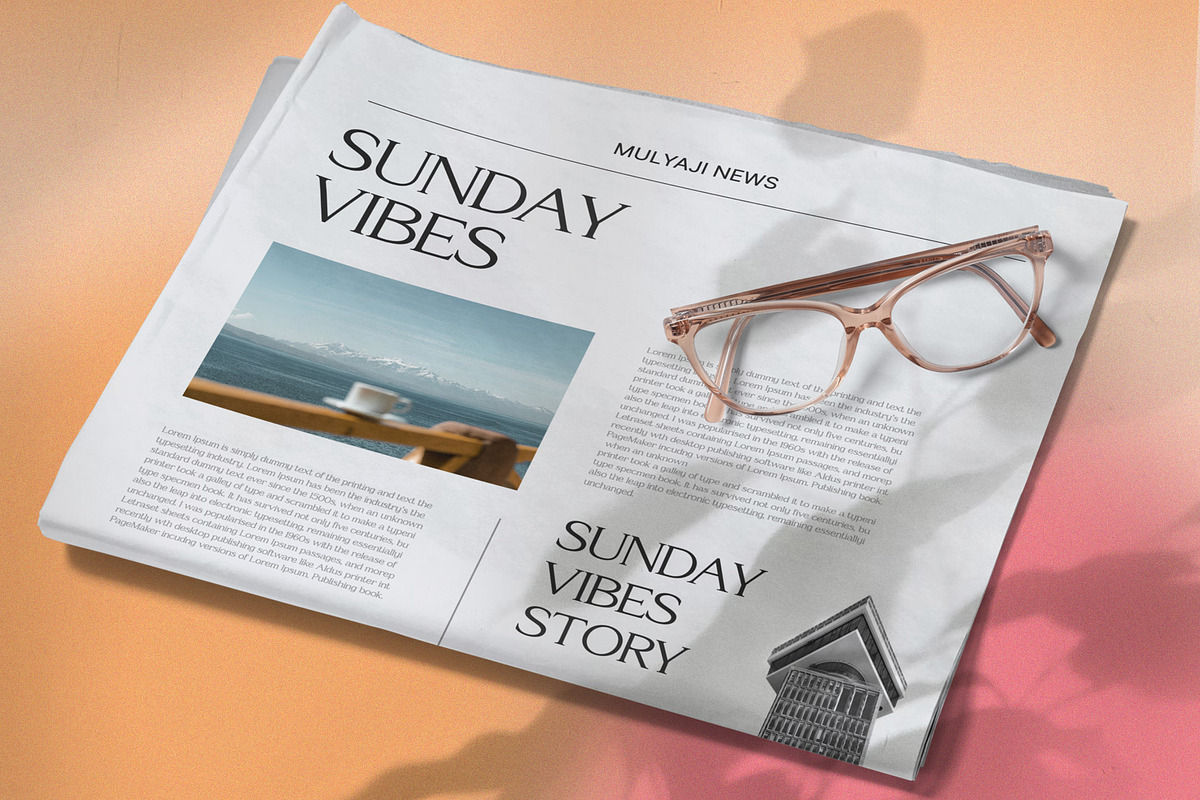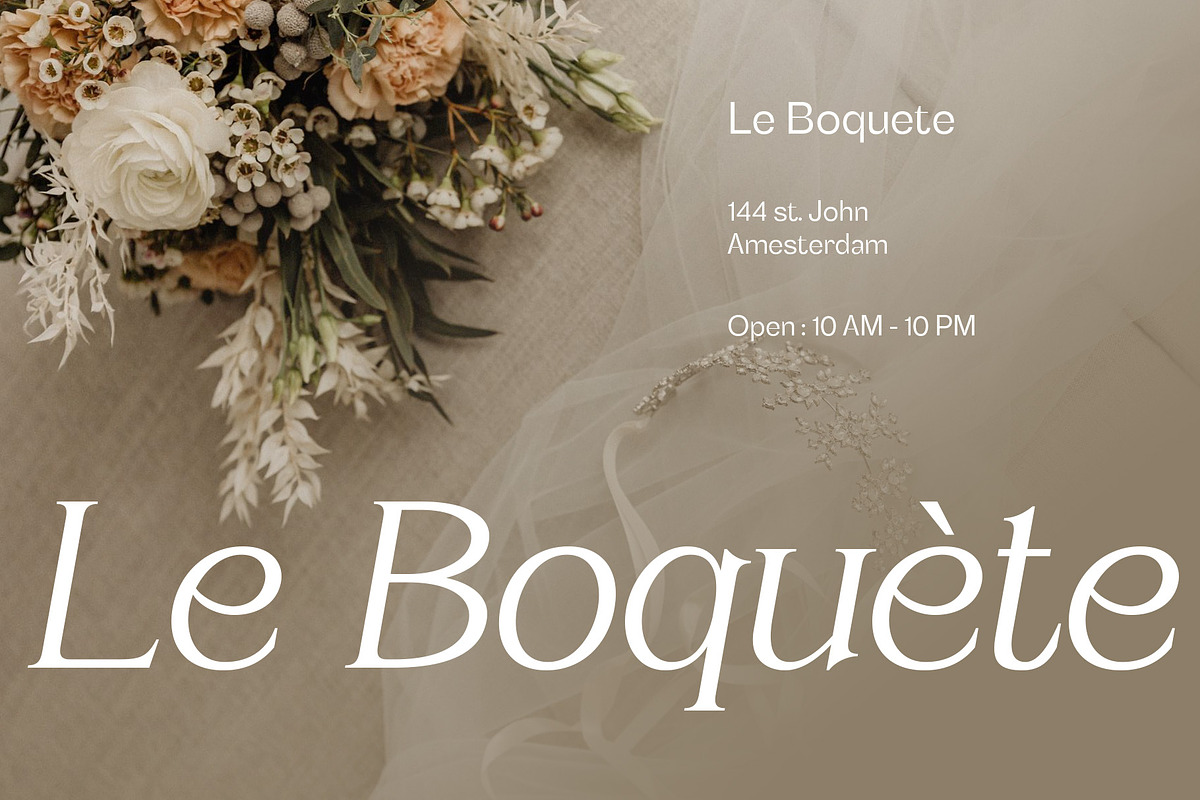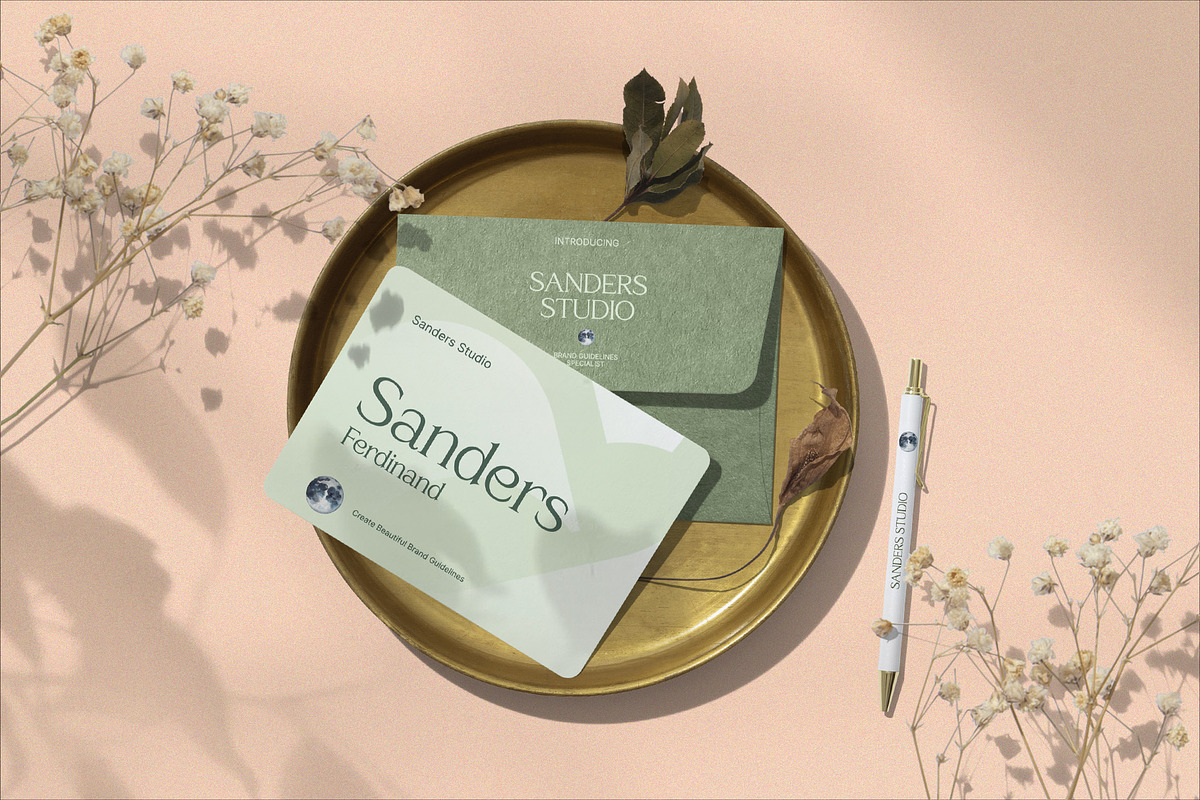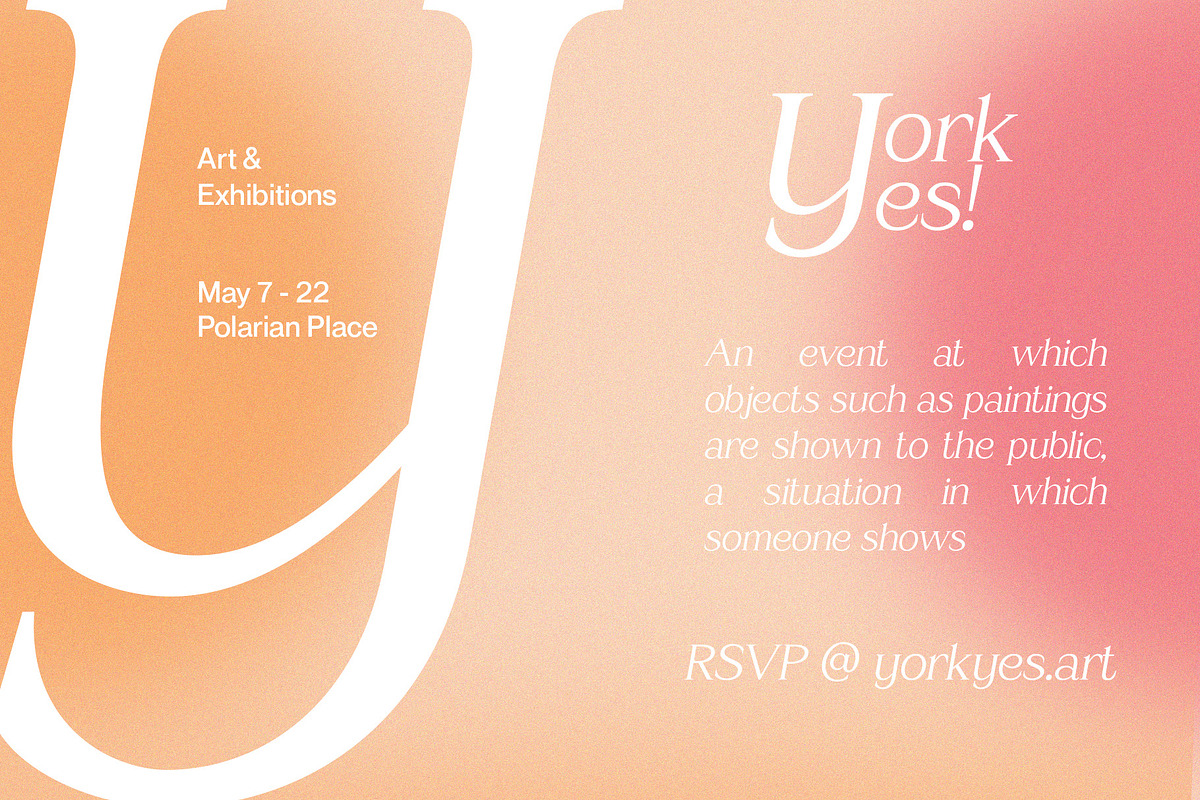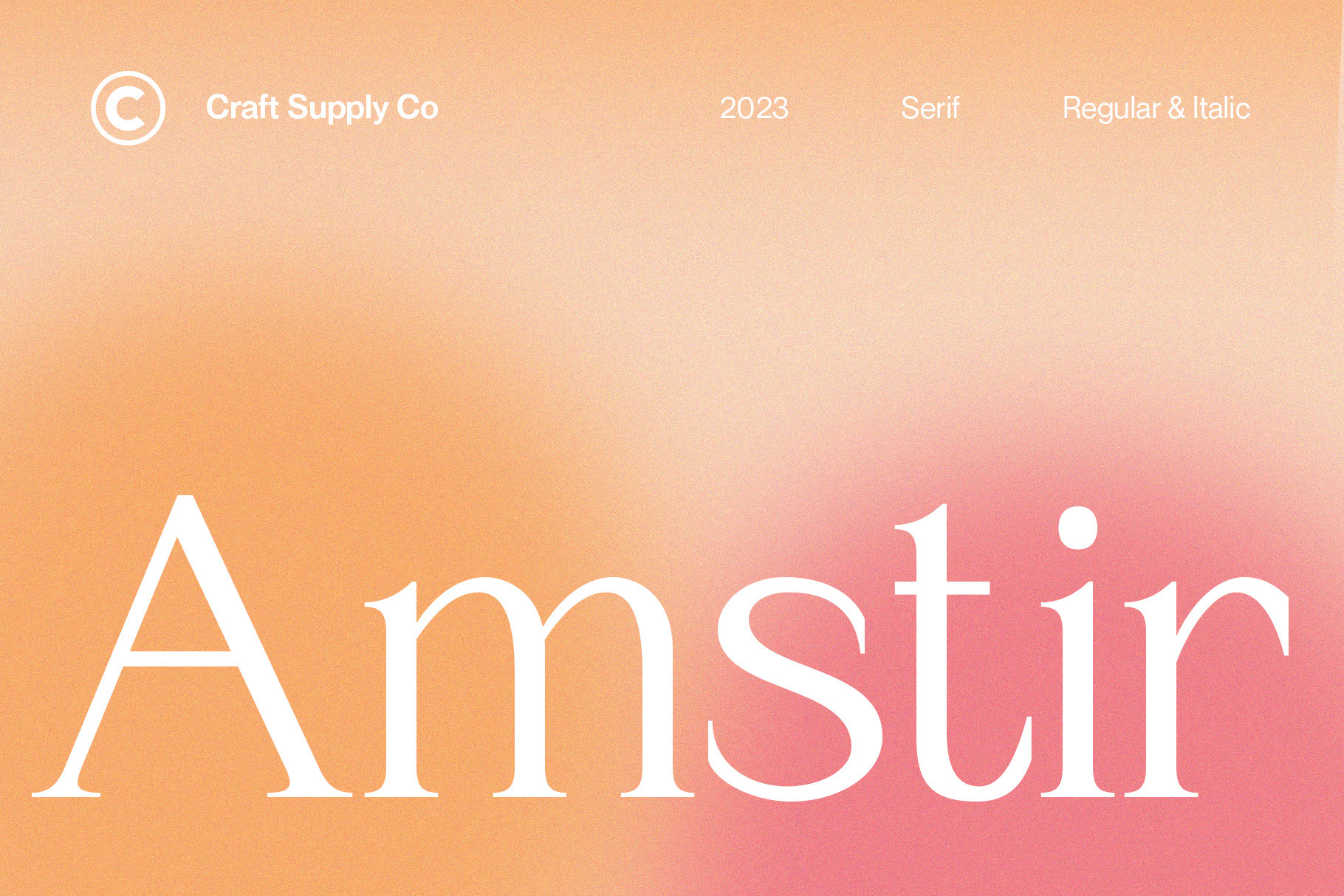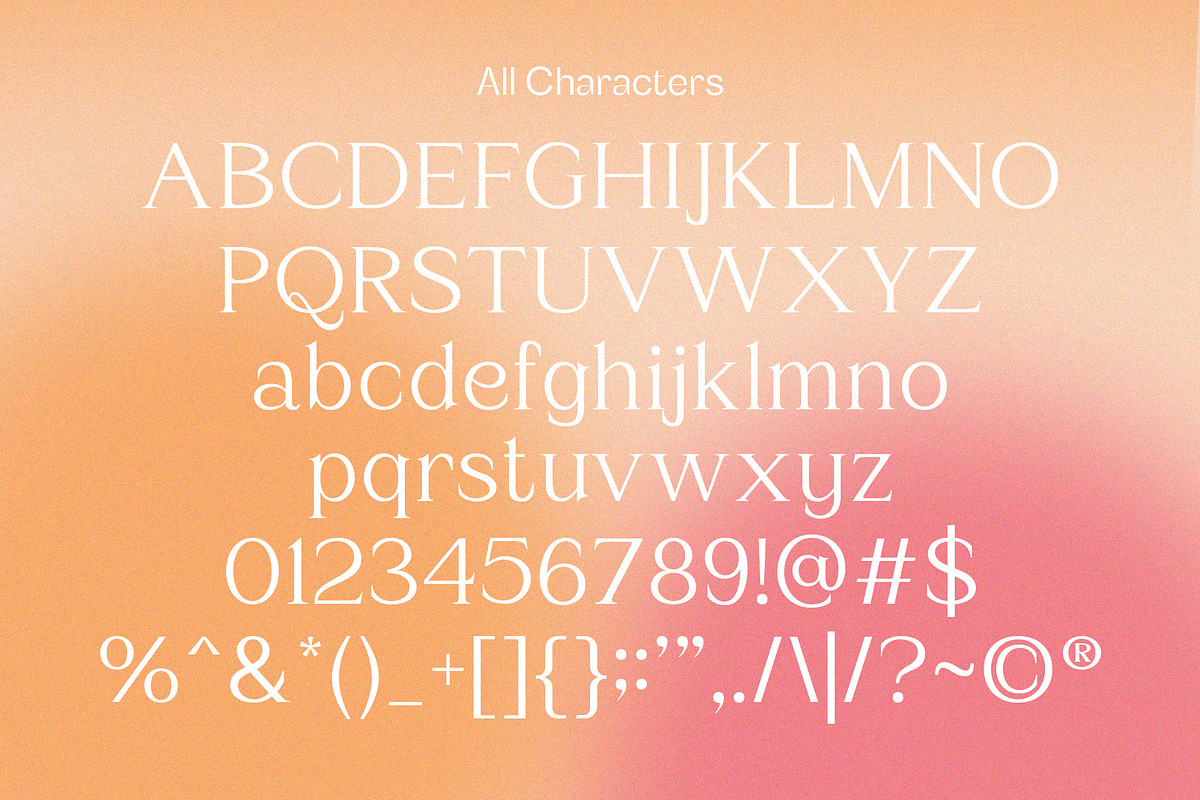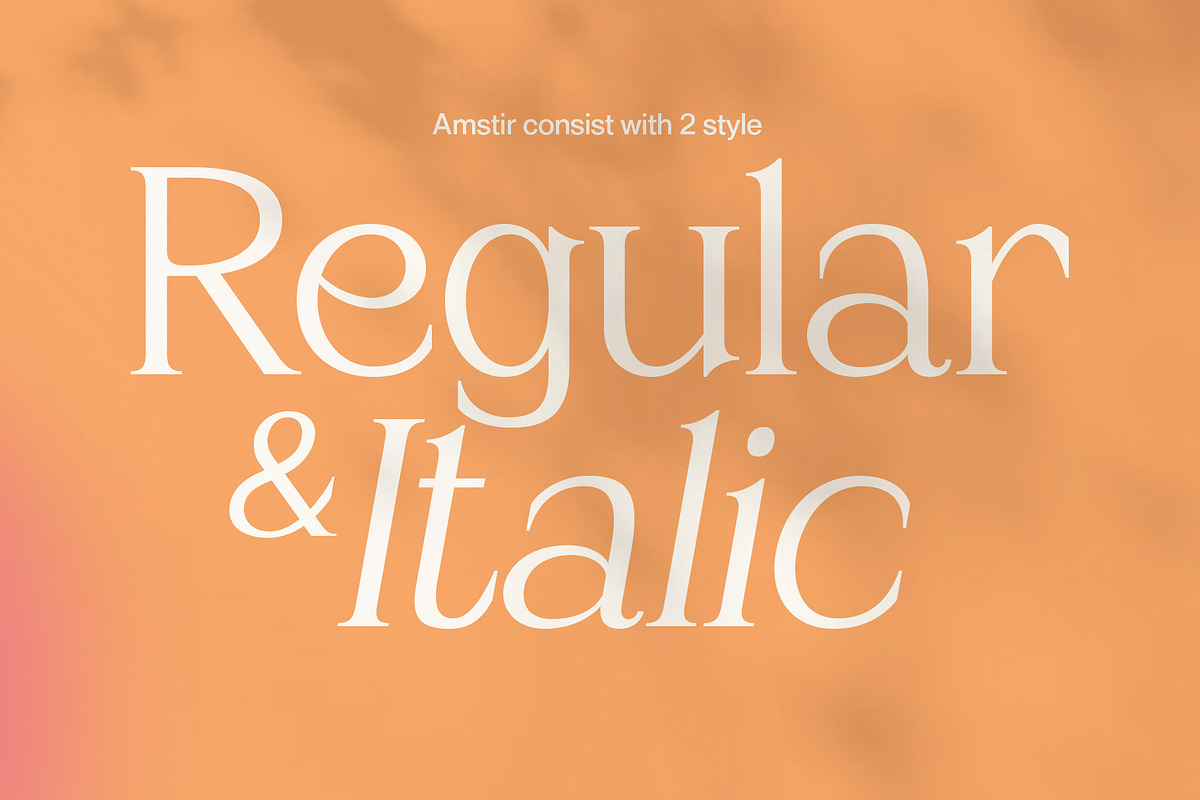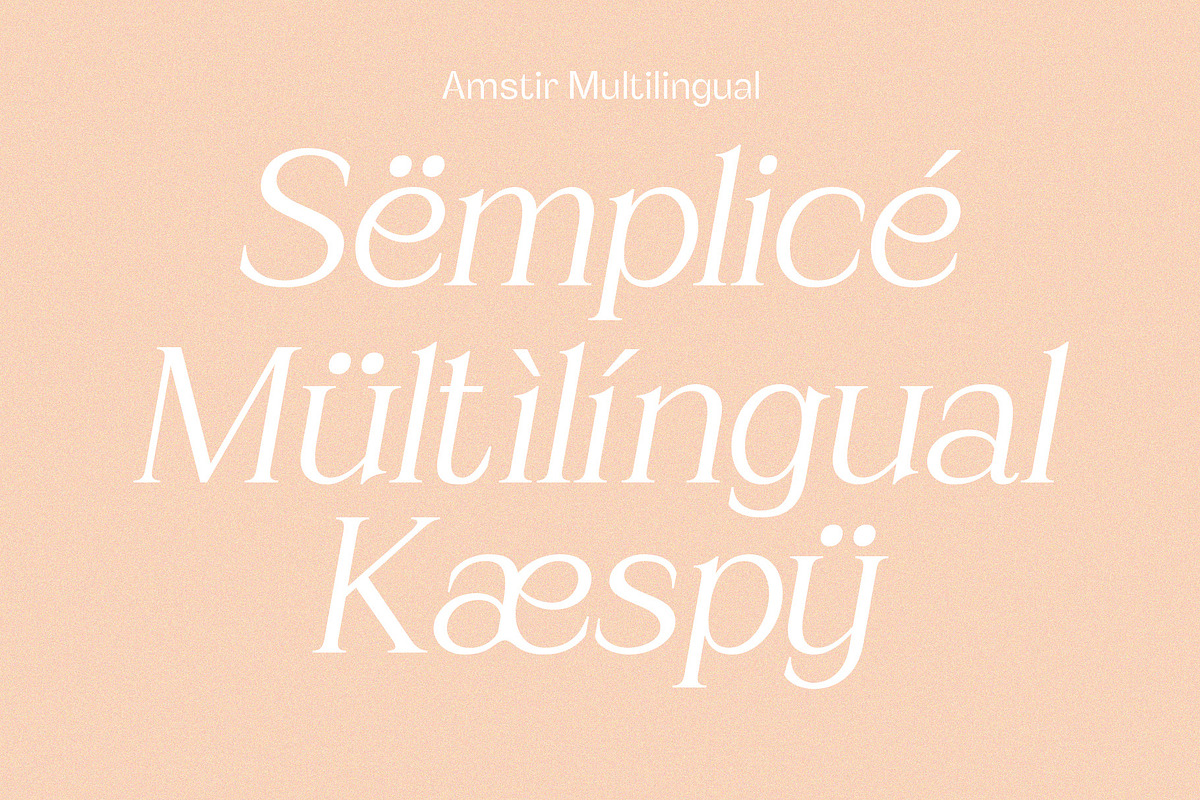
Amstir - Classic Serif Typeface
Amstir is a timeless classic among serif typefaces, perfectly tailored for editorial use. With its elegant lines and refined presence, Amstir brings an air of sophistication to your content. Elevate your editorial projects with the grace and tradition of Amstir's distinguished design.
- Amstir Regular
- Amstir Italic